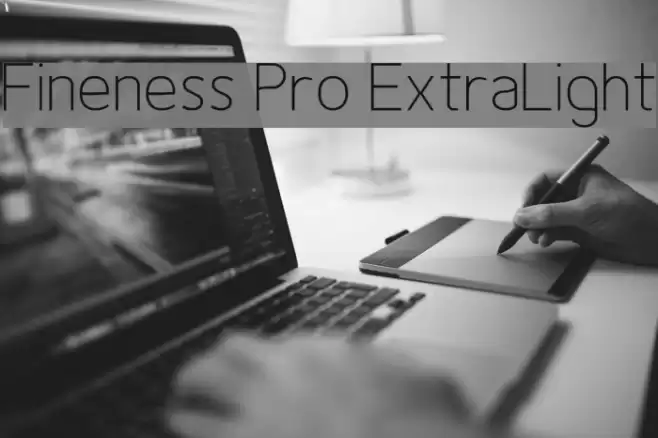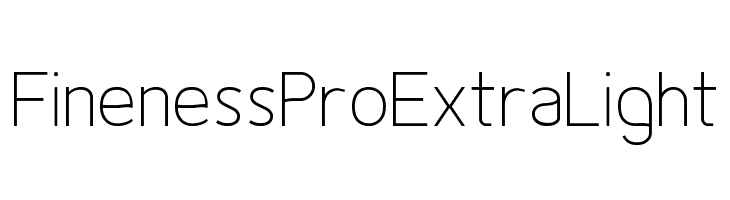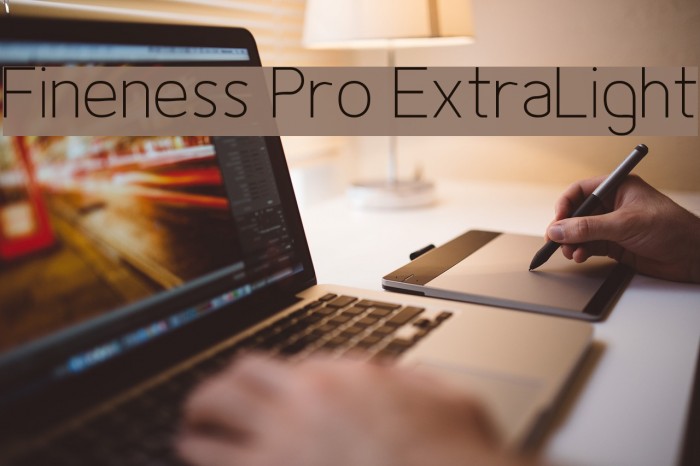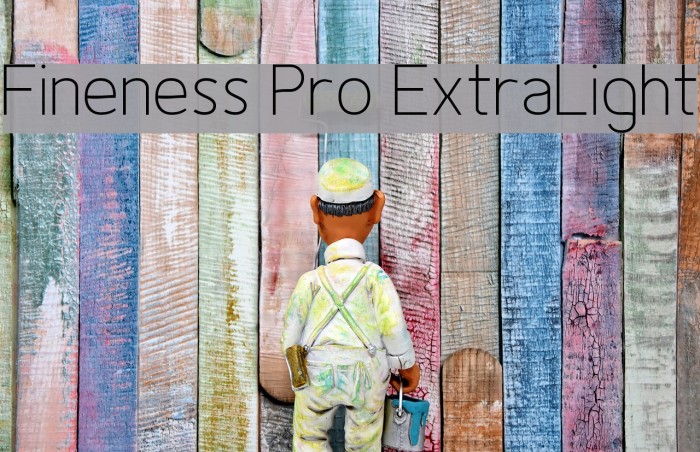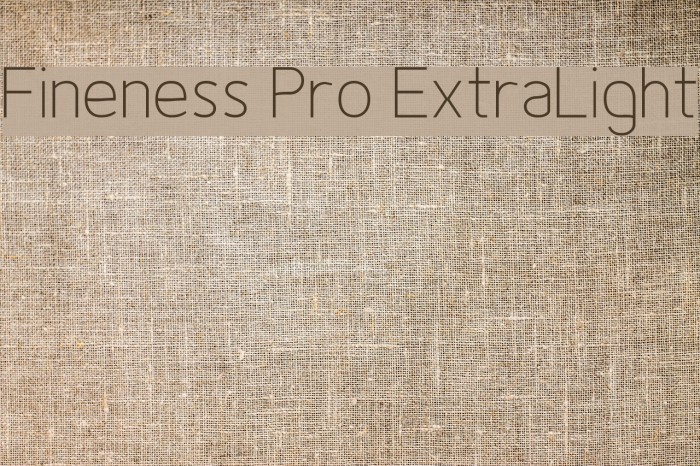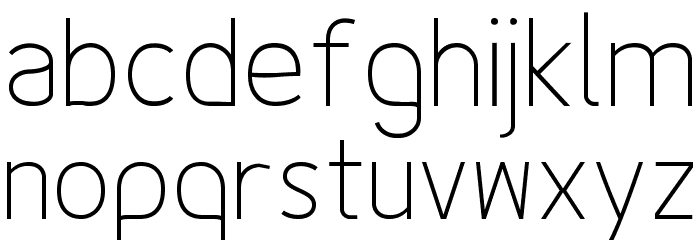
Fineness Pro ExtraLight Font
Fineness Pro ExtraLight Description
This font features a sleek and modern design with an extra light weight, providing a clean and minimalist appearance. The characters are well-proportioned with a uniform stroke width, creating a harmonious and balanced look. The uppercase and lowercase letters are distinct yet cohesive, with rounded edges that add a touch of softness to the overall style. The numerals are clear and easy to read, making them suitable for various applications. The special characters are designed with the same attention to detail, ensuring consistency throughout the font.
A sleek, modern, extra light font with uniform stroke width and rounded edges from Uncategorized fonts.
- Proposed Projects: Ideal for modern branding, minimalist design projects, digital interfaces, and editorial layouts.